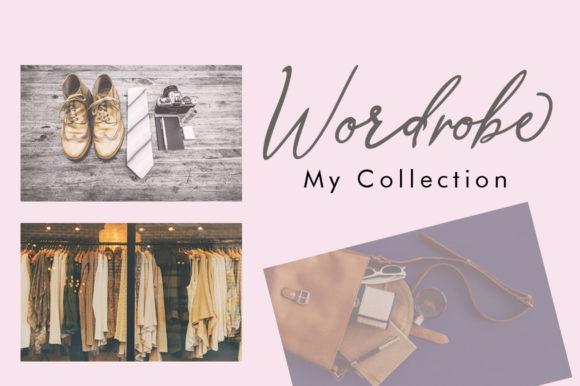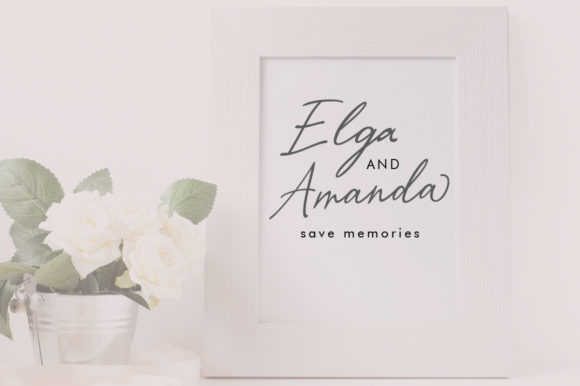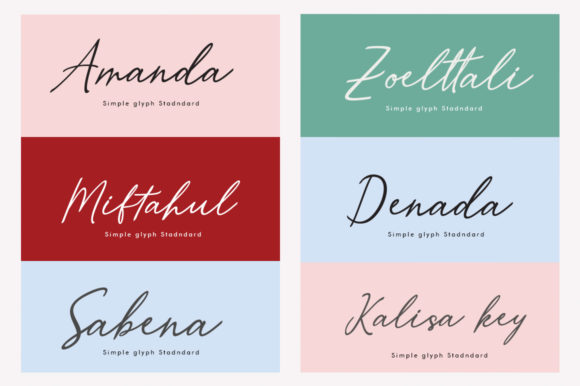
Introduction to Merrxi Script Font
Do you remember the feeling of excitement when you finally land the perfect design project? The rush of creativity that comes with bringing a client’s vision to life is like no other. For designers, it’s not just about creating something aesthetically pleasing, but also about crafting a message that resonates with their audience. One of the most effective ways to do this is through typography, and that’s where the Merrxi Script Font comes in.
This modern calligraphy font has taken the design world by storm, offering a unique handwritten style that’s perfect for branding, wedding invites, magazines, mugs, business cards, and much more. With its high-quality design and transparent background, the Merrxi Script Font is a valuable resource for designers looking to elevate their creative projects.
Key Features of Merrxi Script Font
- Unique, elegant script design perfect for creative projects and design resources.
- High-quality font with a transparent background, ideal for use on various backgrounds and designs.
- Designed with a high level of detail, making it suitable for use in various design contexts, from invitations to branding materials.
Honest Review: Merrxi Script Font
As a designer, I’m always on the lookout for high-quality design resources to elevate my creative projects. Recently, I had the chance to try out the Merrxi Script Font, and I’m excited to share my honest review.
What works well: ✨ The Merrxi Script Font is a beautiful, elegant script font that’s perfect for adding a touch of sophistication to your designs. It’s highly versatile and can be used for a variety of creative projects, from invitations to branding materials. I particularly love the fact that it comes with a transparent background, making it easy to use in combination with other design elements.
Overall, I’m impressed with the Merrxi Script Font, and I would definitely recommend it to designers who are looking for a high-quality script font. However, I wish it was available for free download and had more weight options.
- Beautiful, elegant script font
- Highly versatile and suitable for various creative projects
- Comes with a transparent background
- Available in a few weights
Tips for Getting the Most Out of Merrxi Script Font
For the best results, use Merrxi Script Font with a high contrast background to make the text stand out. You can also use it with a transparent background to create a more subtle design. Experiment with different font sizes and styles to find the perfect look for your creative project.
Merrxi Script Font is ideal for use in invitations, wedding stationery, and other creative projects where a elegant and sophisticated font is needed. It’s also great for use in logos, posters, and other marketing materials where a high quality design resource is required.